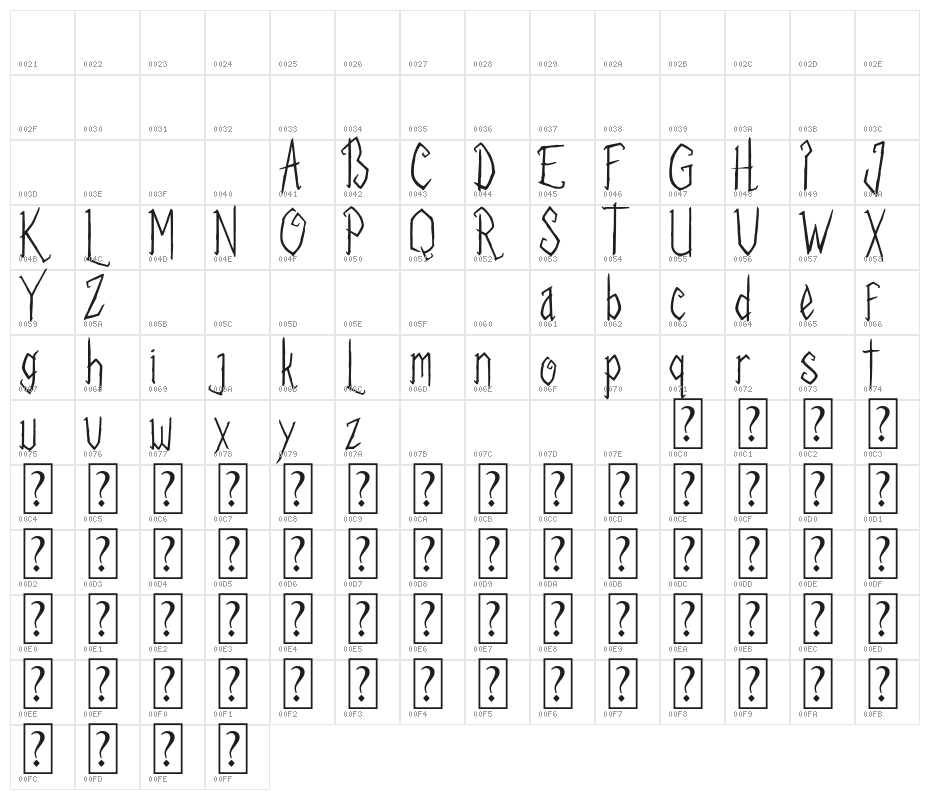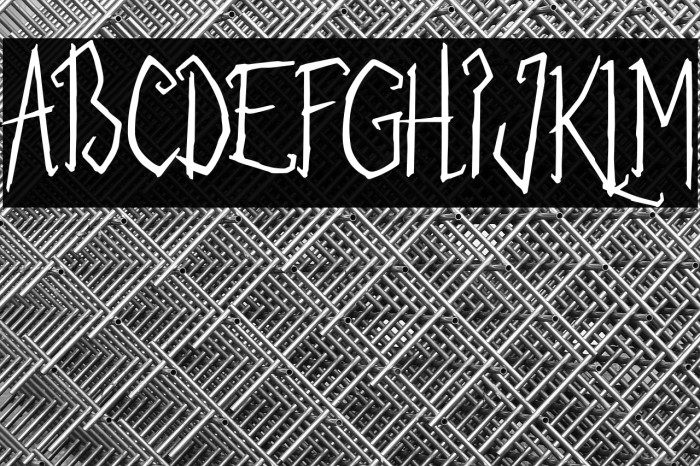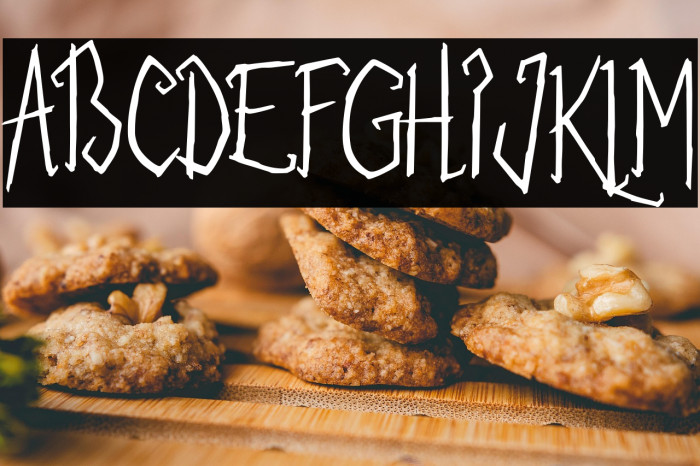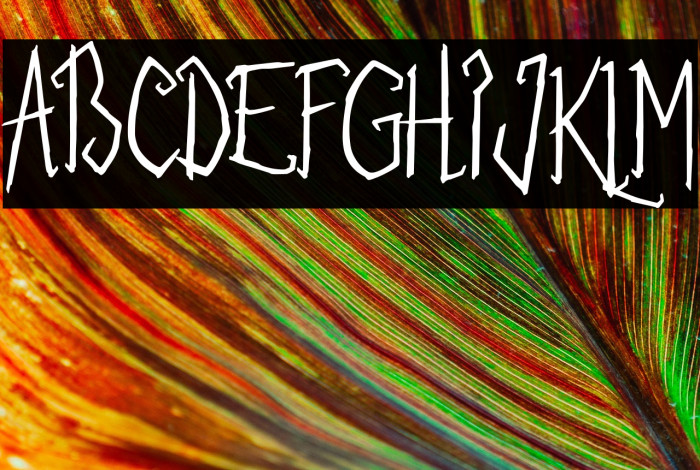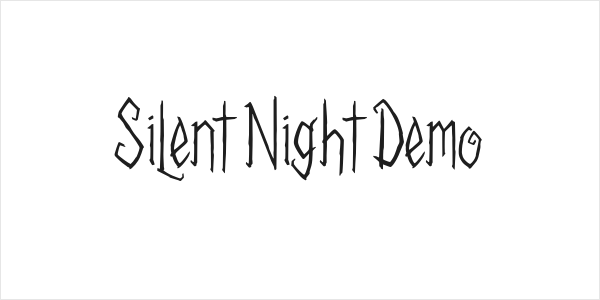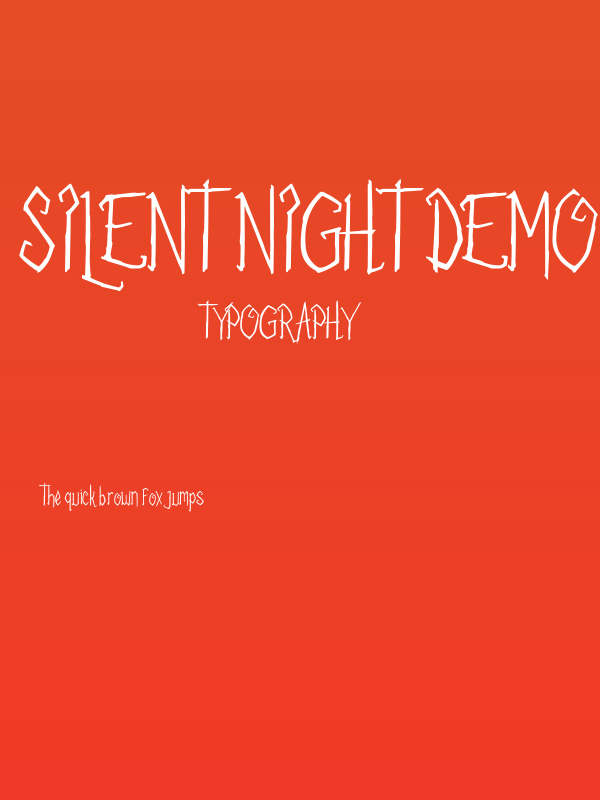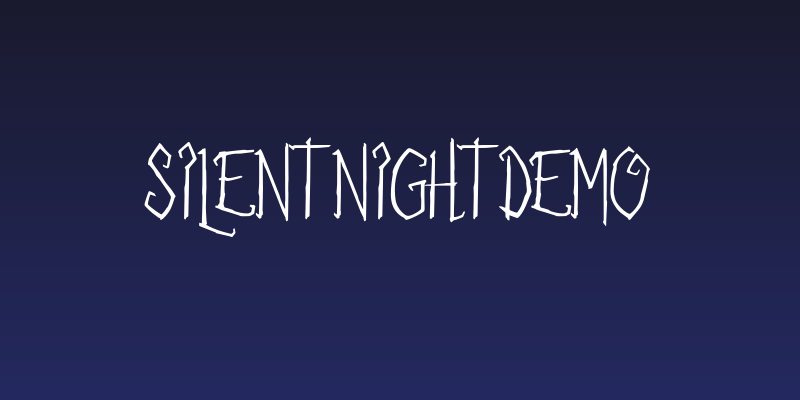
Silent Night Demo Font
Silent Night Demo Description
This font features a distinctive, hand-drawn style with an uneven, jagged appearance. The characters are tall and narrow, with irregular strokes that give it a unique, artistic flair. The uppercase and lowercase letters share a consistent style, with exaggerated angles and sharp edges. The numbers and special characters maintain this aesthetic, creating a cohesive look across all glyphs. The font's overall appearance is reminiscent of a gothic or medieval script, yet it retains a modern edge due to its unconventional shapes and forms.
| Overall Style | Gothic, Artistic |
| Use Case | Posters, Album covers, Artistic designs |
| Proposed Projects | Ideal for artistic projects, album covers, posters, or any design requiring a unique, edgy look. |